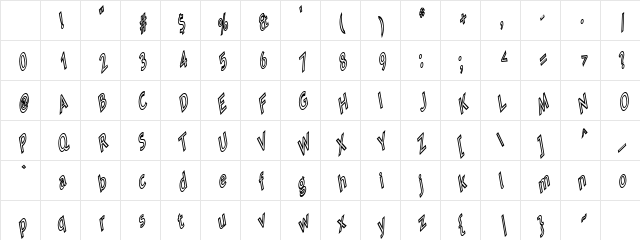
Complete Tip Me Cheapy Regular glyph index. Displaying only characters natively supported by Tip Me Cheapy Regular font.
Tip Me Cheapy is a composed and adaptable typeface that performs quietly and consistently across a wide range of design contexts.
Pro Tip: Use Tip Me Cheapy in both headline and body roles to test its range before committing to a single application.